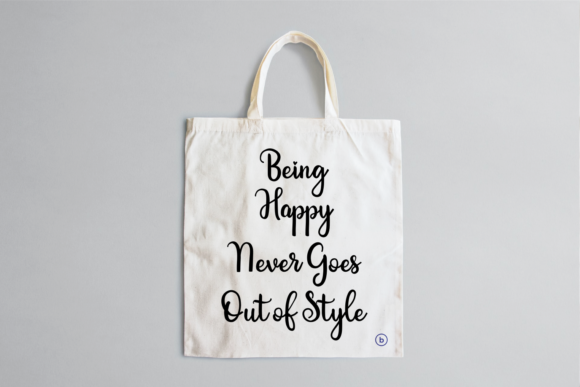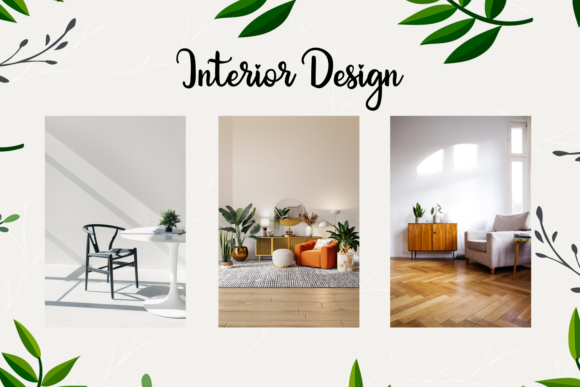
Simple Writing Font
db-ku.com - Script & Handwritten -- Simple Writing is a delicate, elegant and flowing handwritten font. It has beautiful and well balanced characters and as a result, it matches a wide pool of designs. Add it to your most creative ideas and notice how it makes them come alive!